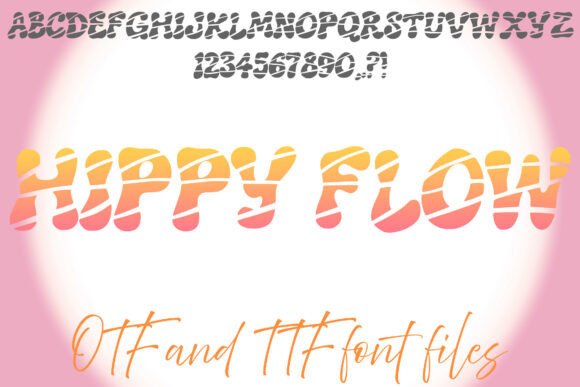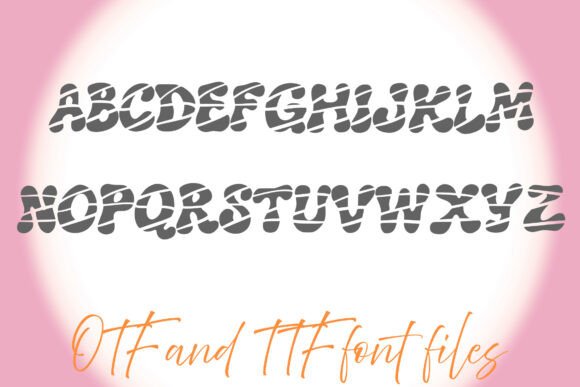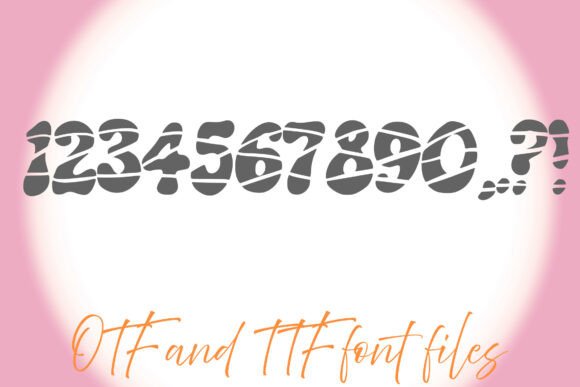
Hippy Flow Font
About the Hippy Flow Font
The wait is over! The incredible Hippy Flow Font is now available for your design toolkit. Let the groove flow with Hippy Flow Font! Inspired by the 60s psychedelic era, this wavy, retro gradient-styled typeface adds instant joy and vintage flair to posters, album art, and event branding.
Hippy Flow thrives in large-scale applications such as posters, album art, and logos where its bold, playful character makes a statement. It’s ideal for projects needing a retro, vibrant feel, particularly those related to music, festivals, or brands targeting a younger, creative demographic. Avoid using it for body text or UI elements; its highly stylized forms are difficult to read at smaller sizes.
Pairing Hippy Flow with a clean sans-serif like Futura or a geometric sans-serif like Montserrat creates a strong visual contrast, grounding its whimsical energy. For a softer contrast, consider pairing it with a warm, slightly rounded serif such as Playfair Display. This offers a vintage feel that complements the font’s retro inspiration without overwhelming it.
Its core personality is undeniably playful and rebellious, reflecting the free-spirited energy of the 1960s. This makes it an excellent choice for projects that require a strong visual identity with a distinct retro-psychedelic vibe.